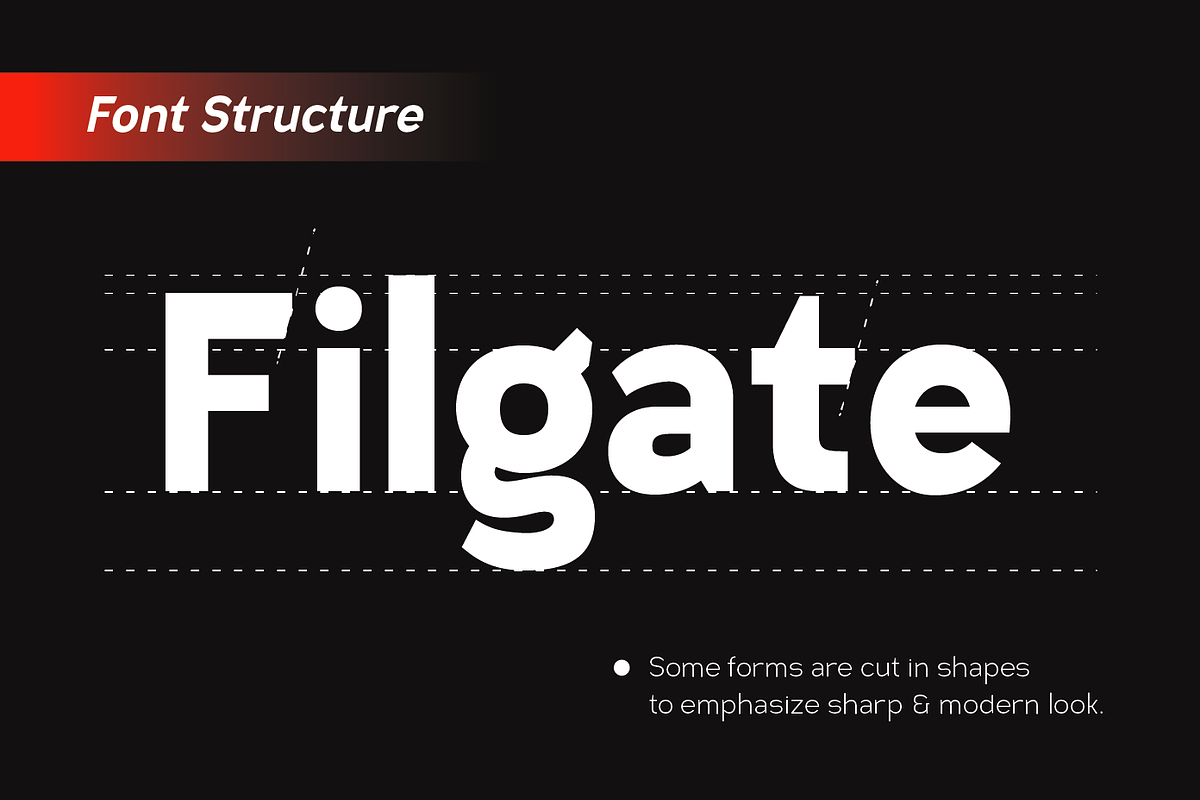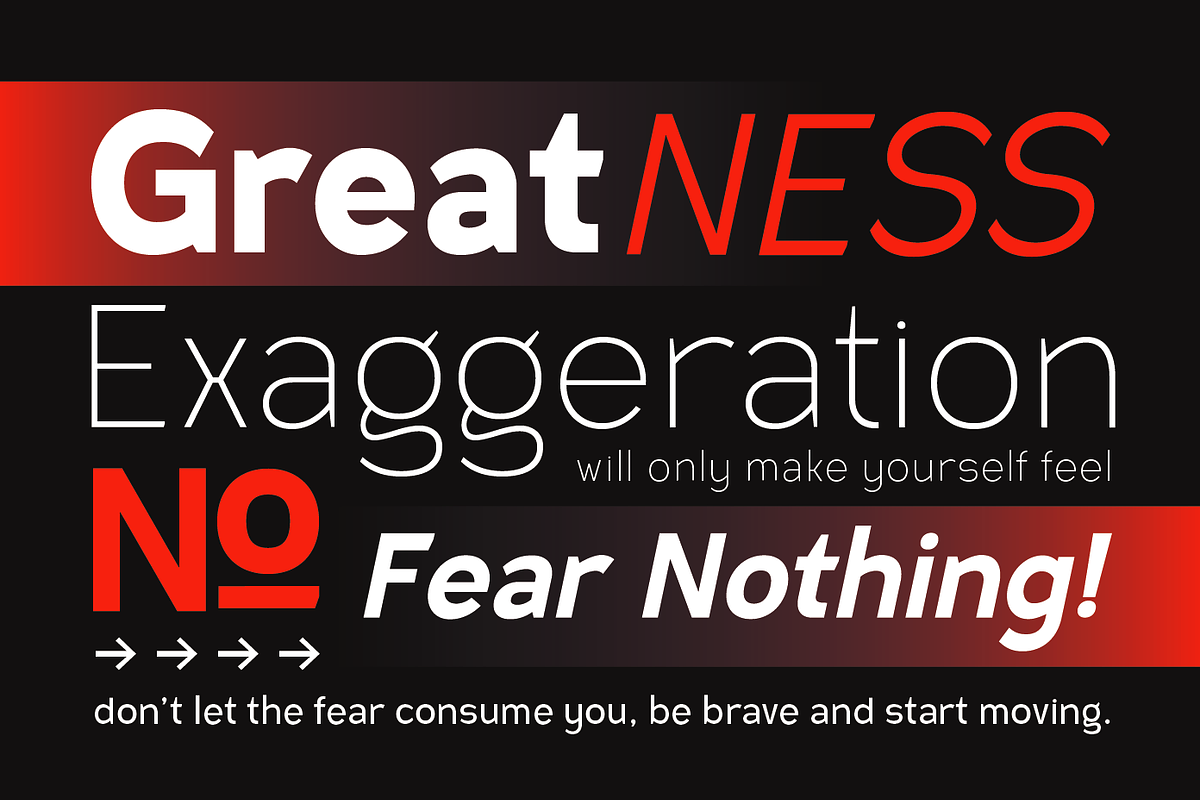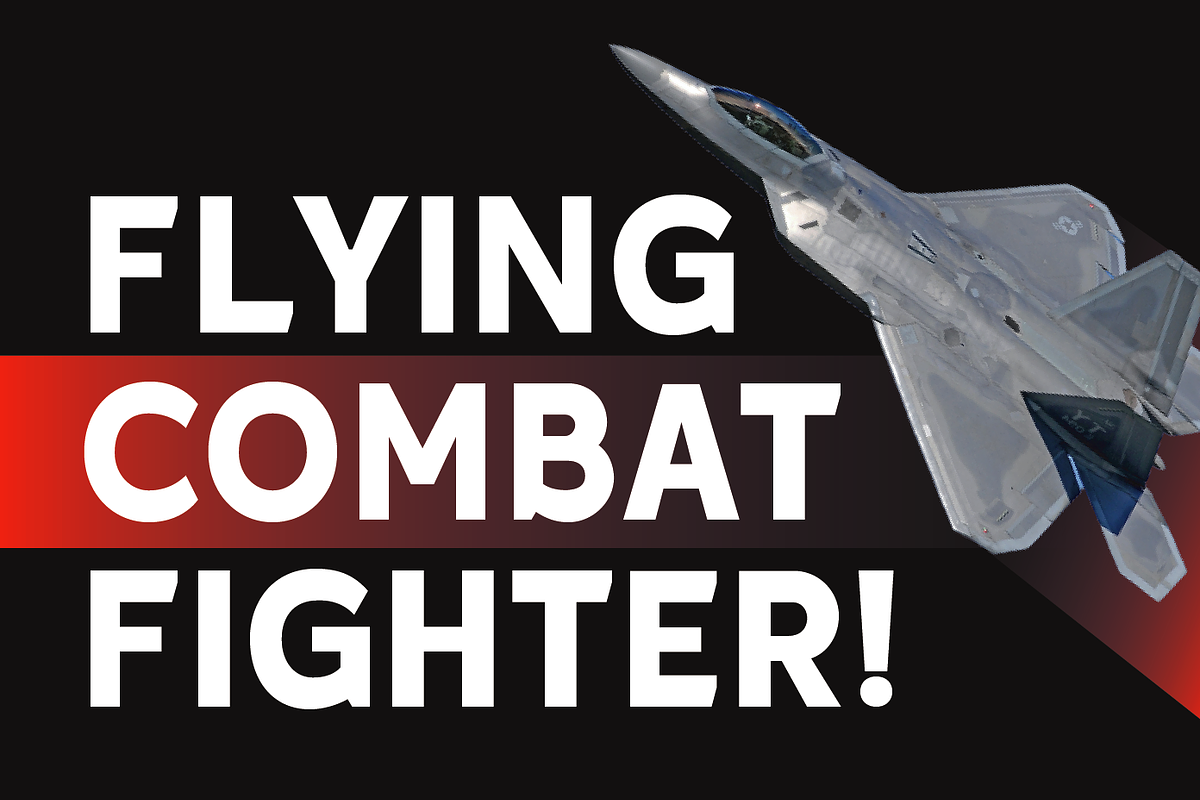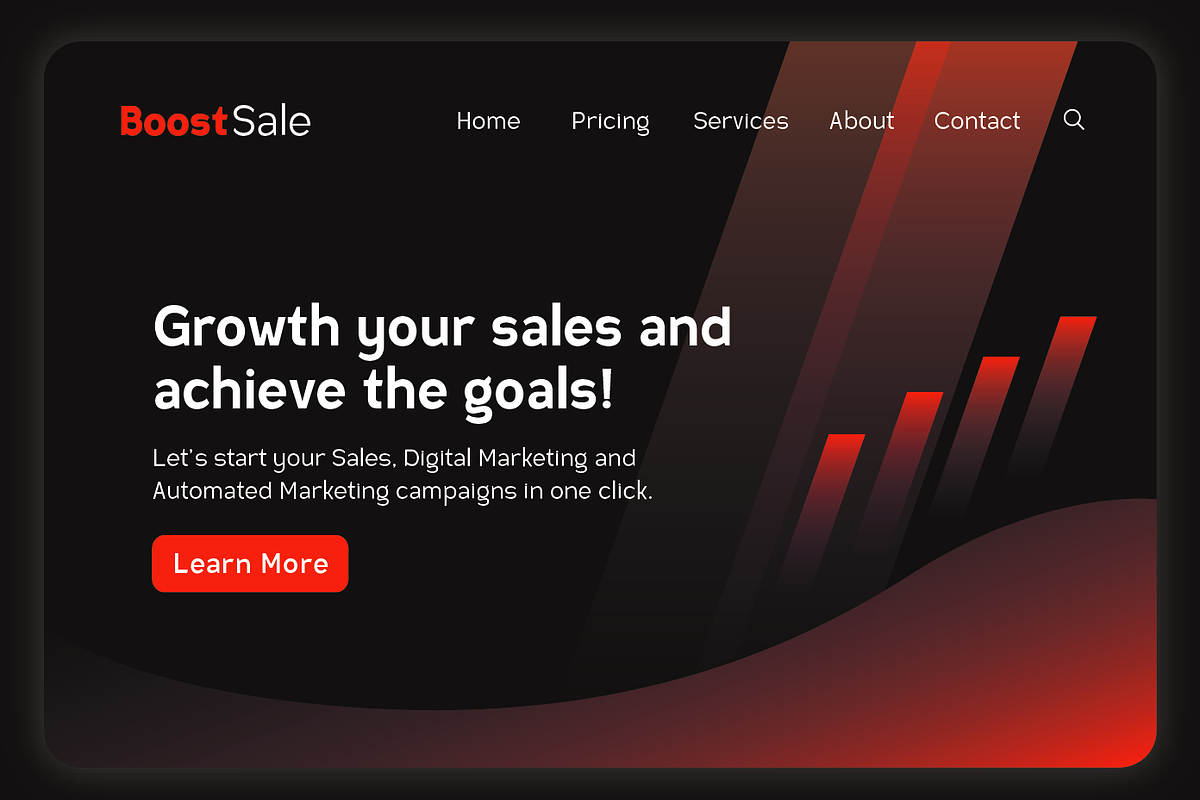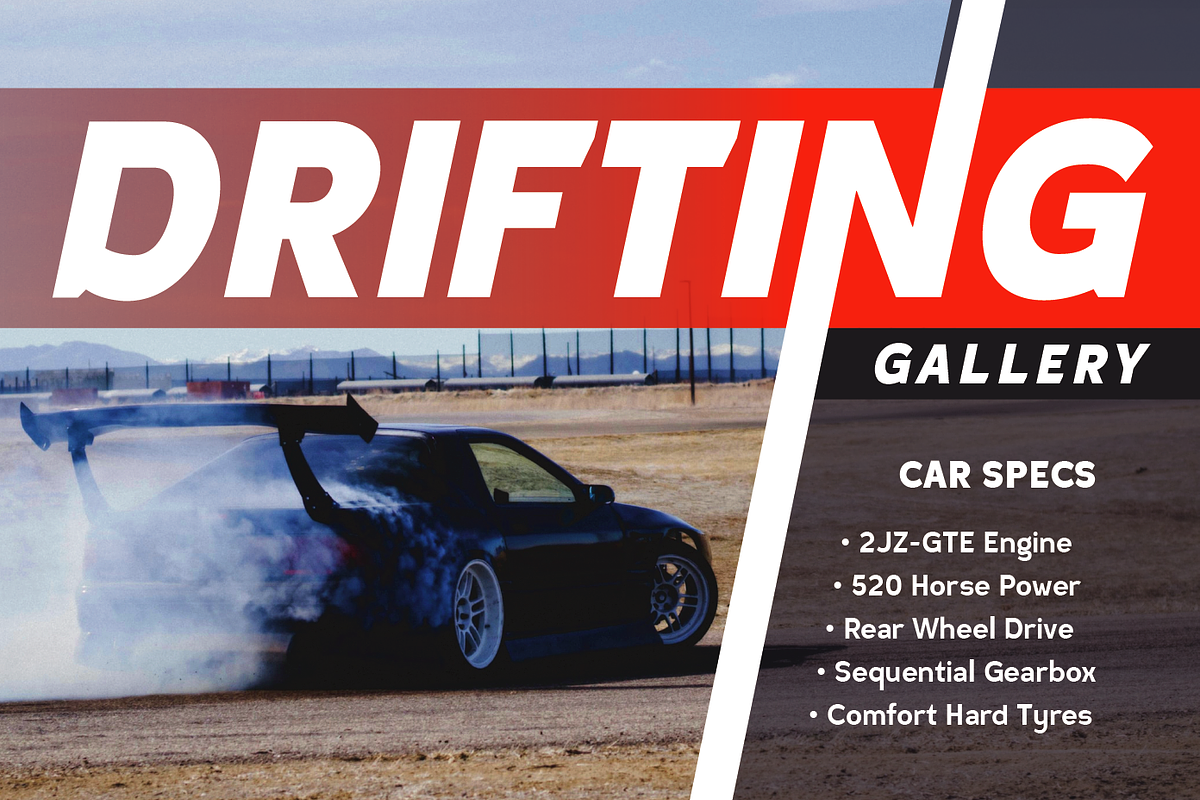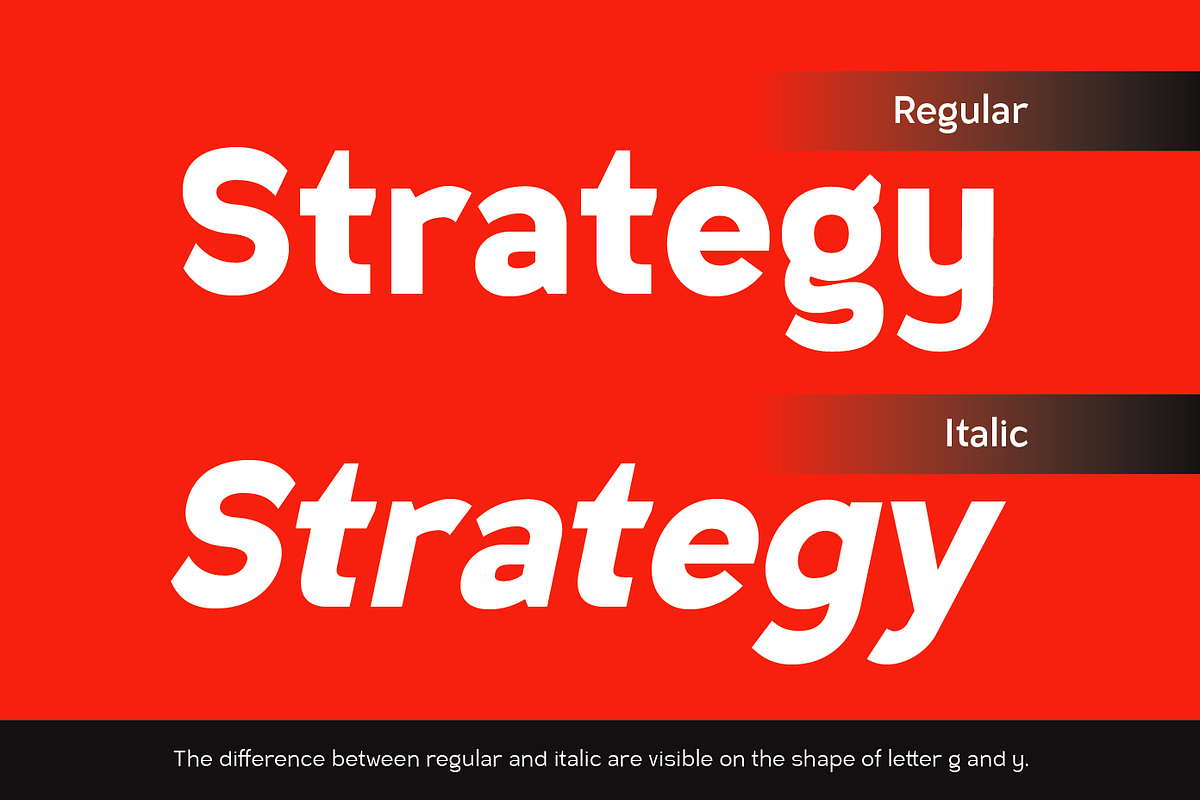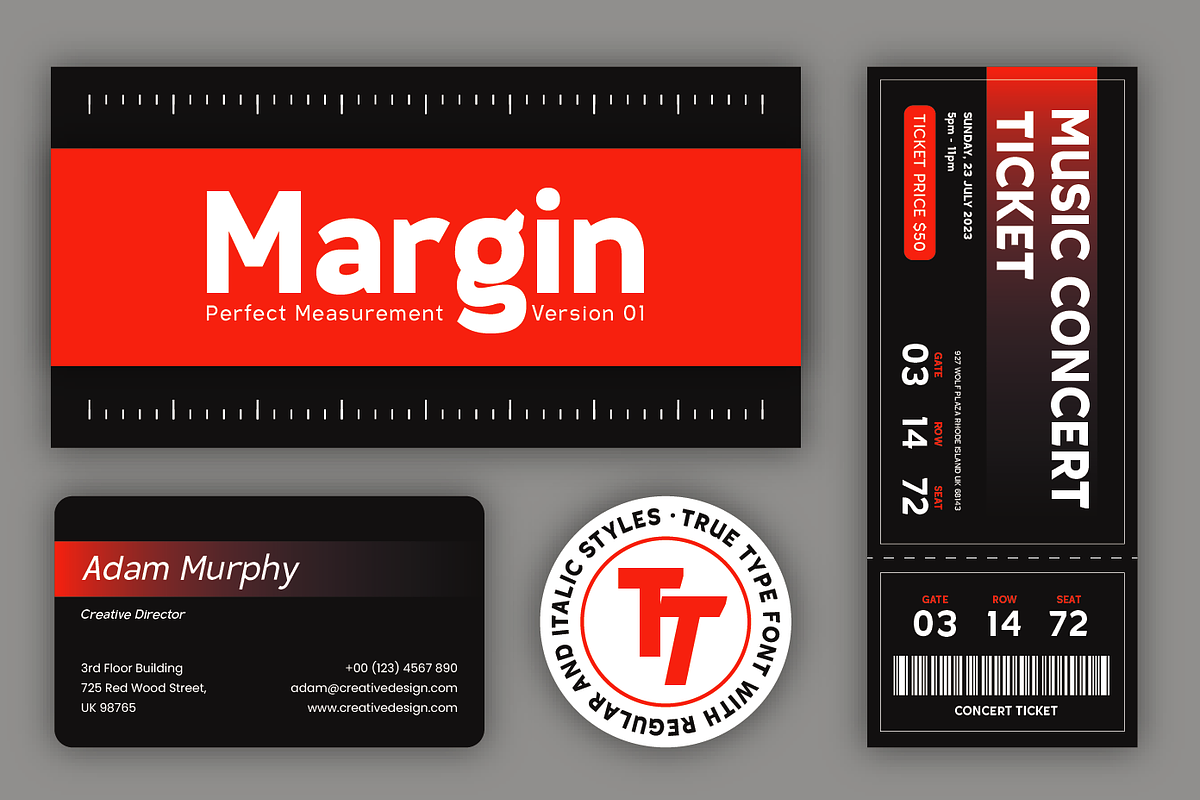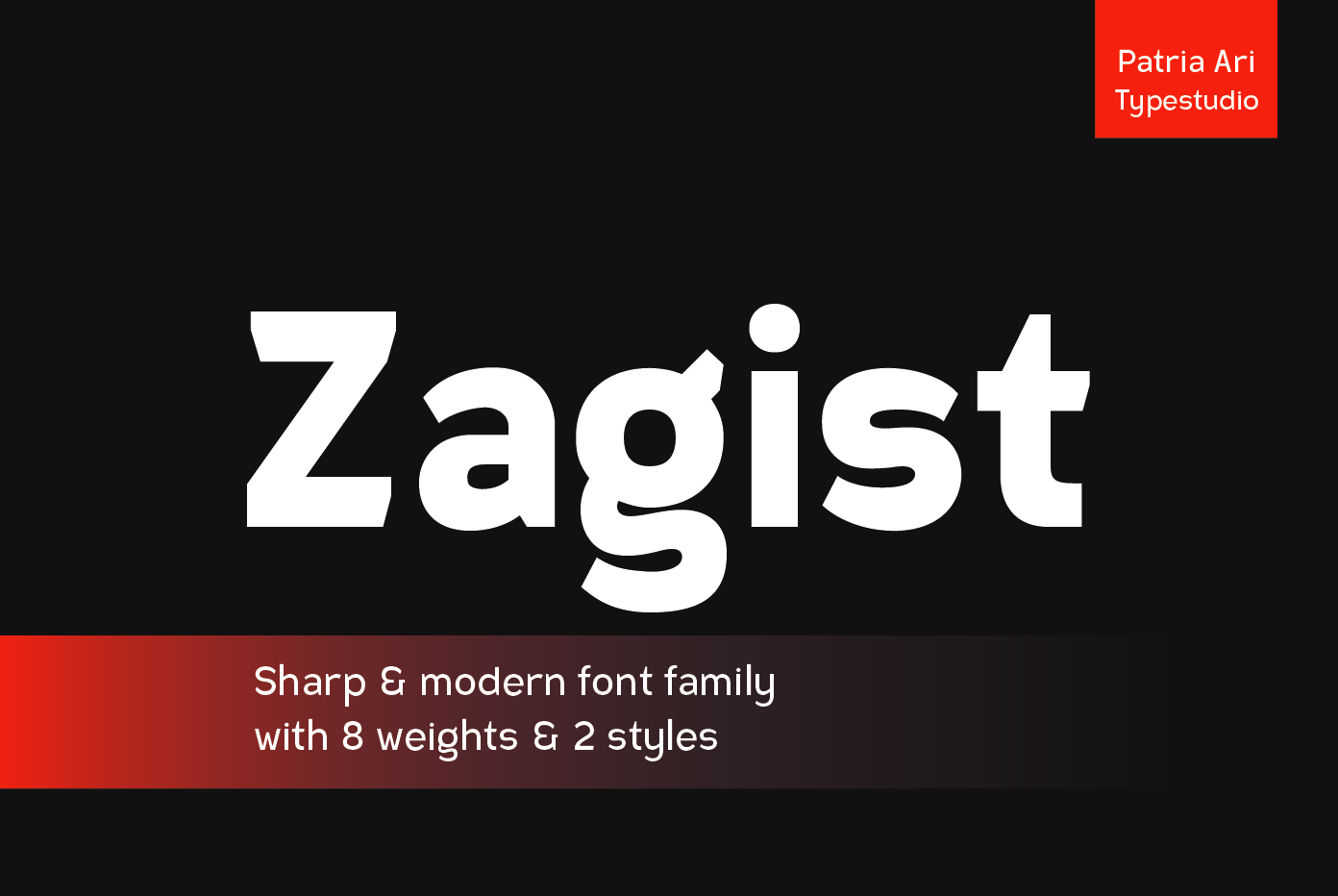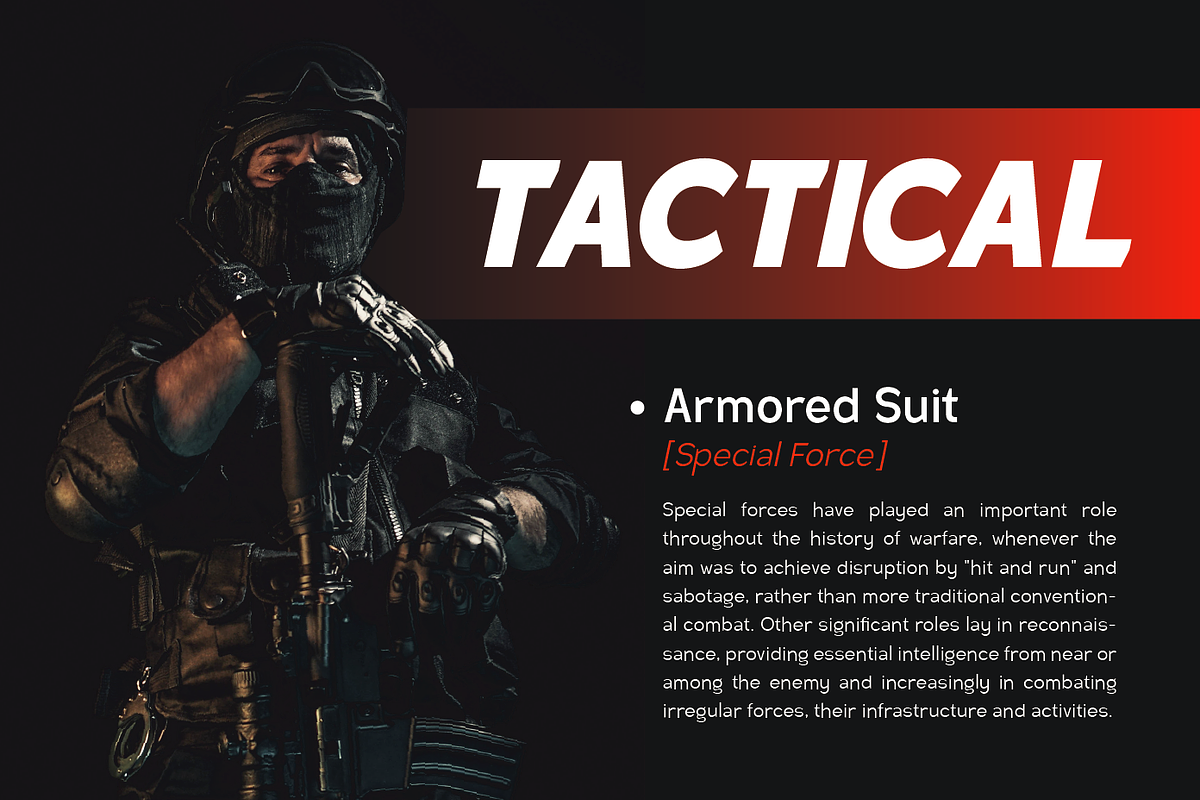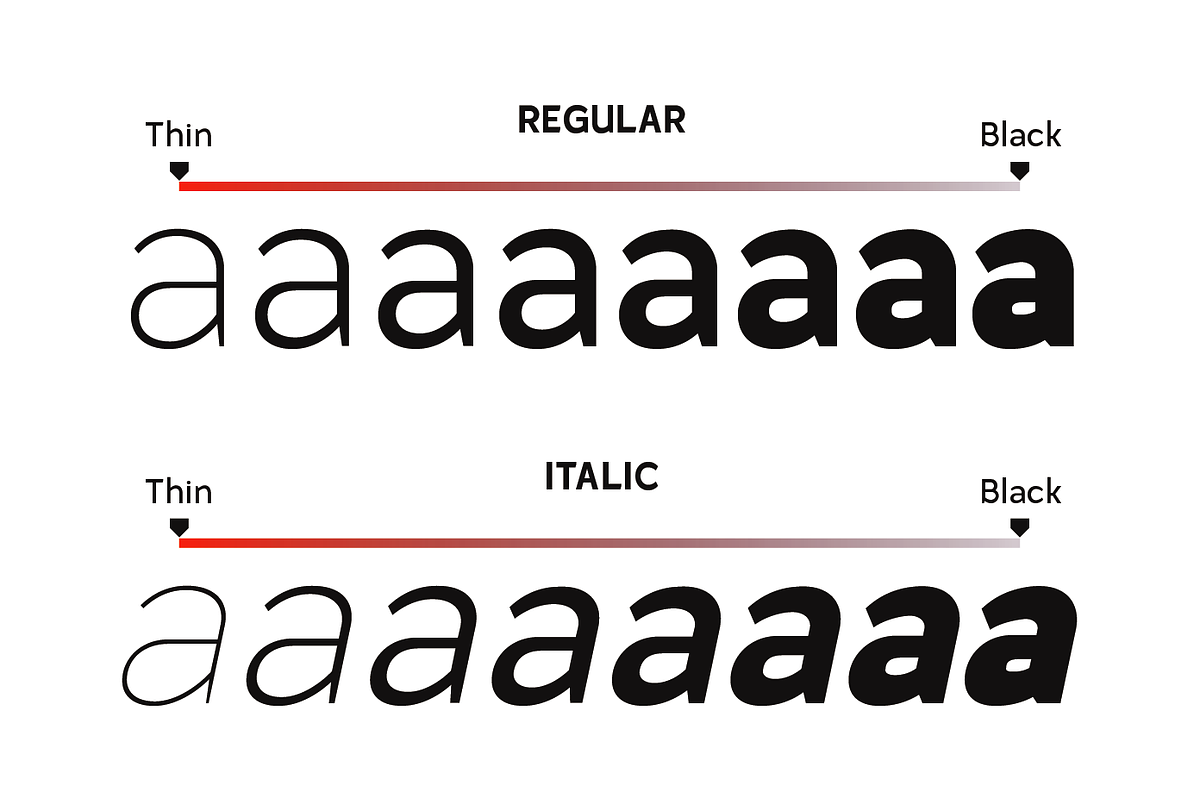
Zagist Font Family
Zagist Font Family is suitable for headlines of all sizes, editorial design, branding, packaging, web and broadcast use, etc.
This font designed with sharp and modern forms with some sharp shapes and angles on every glyphs, so each individual character is quickly and easily recognized.